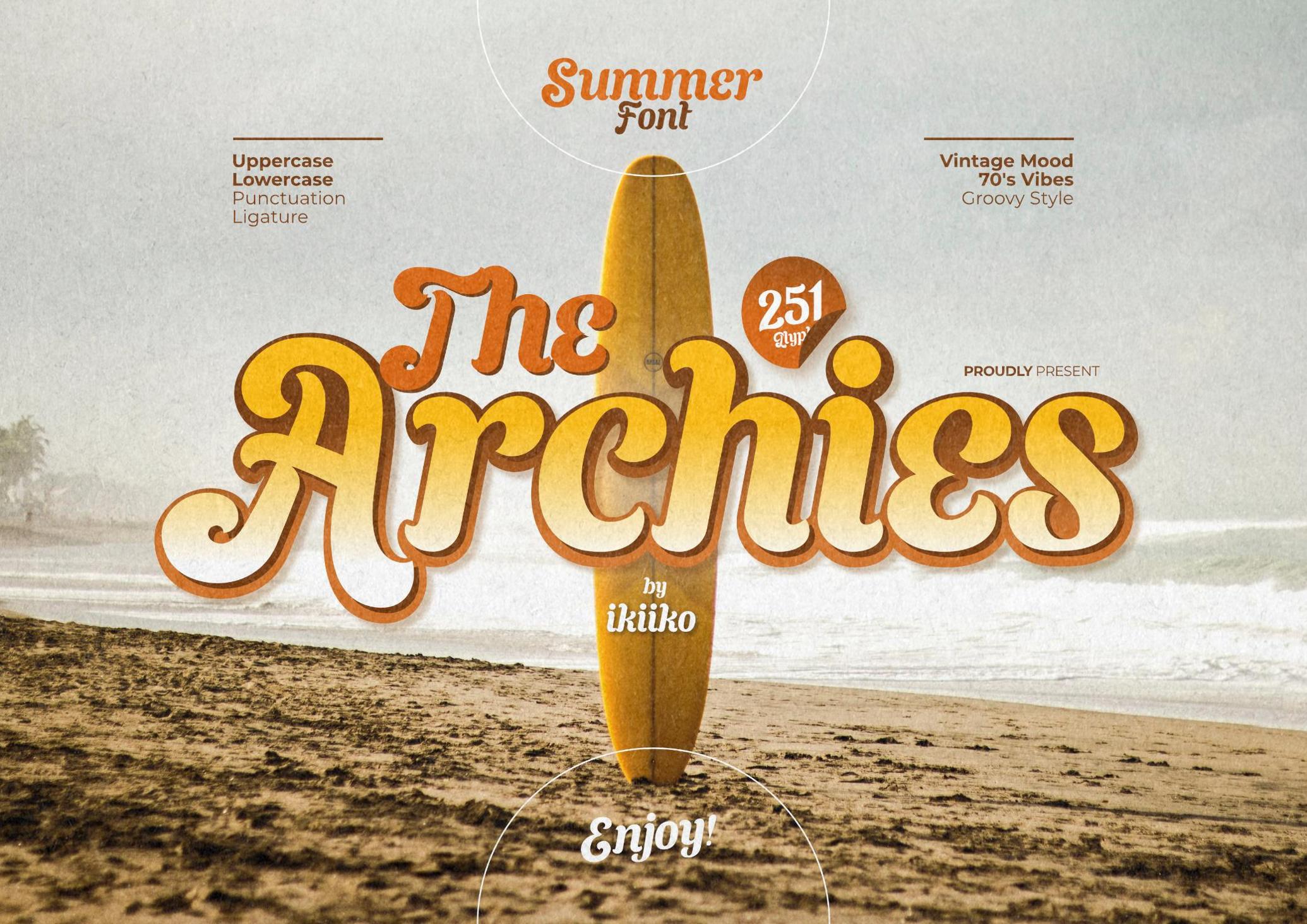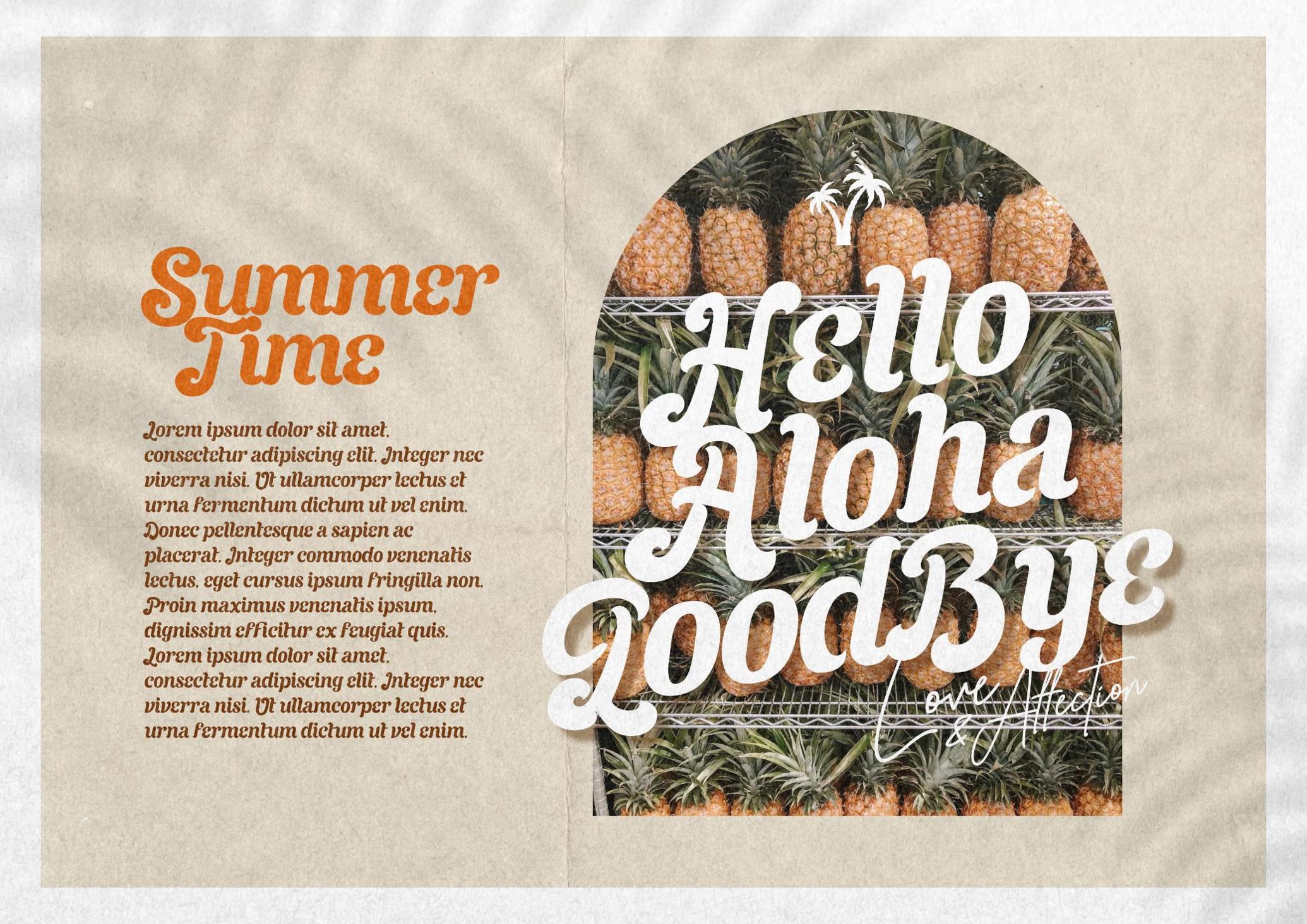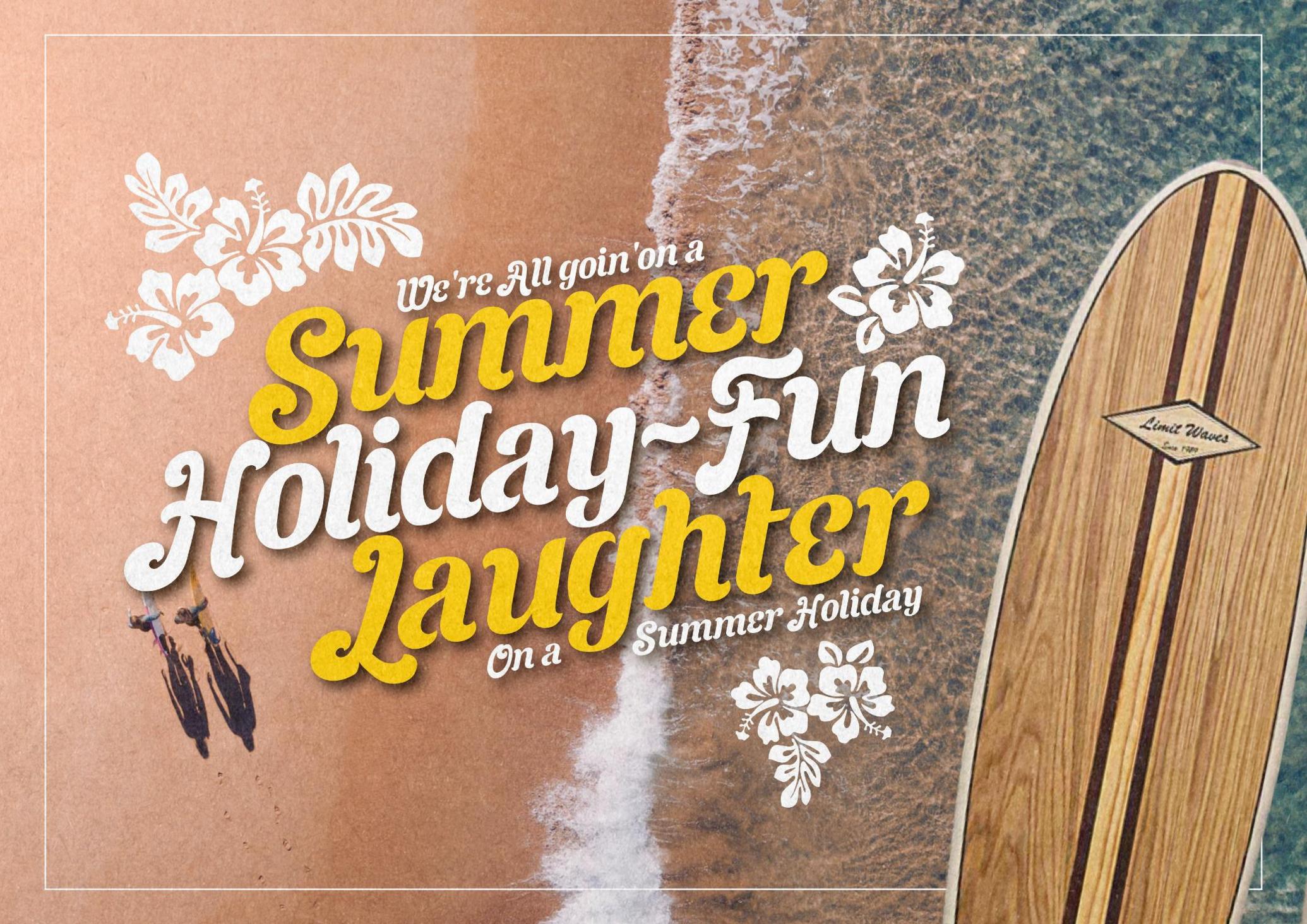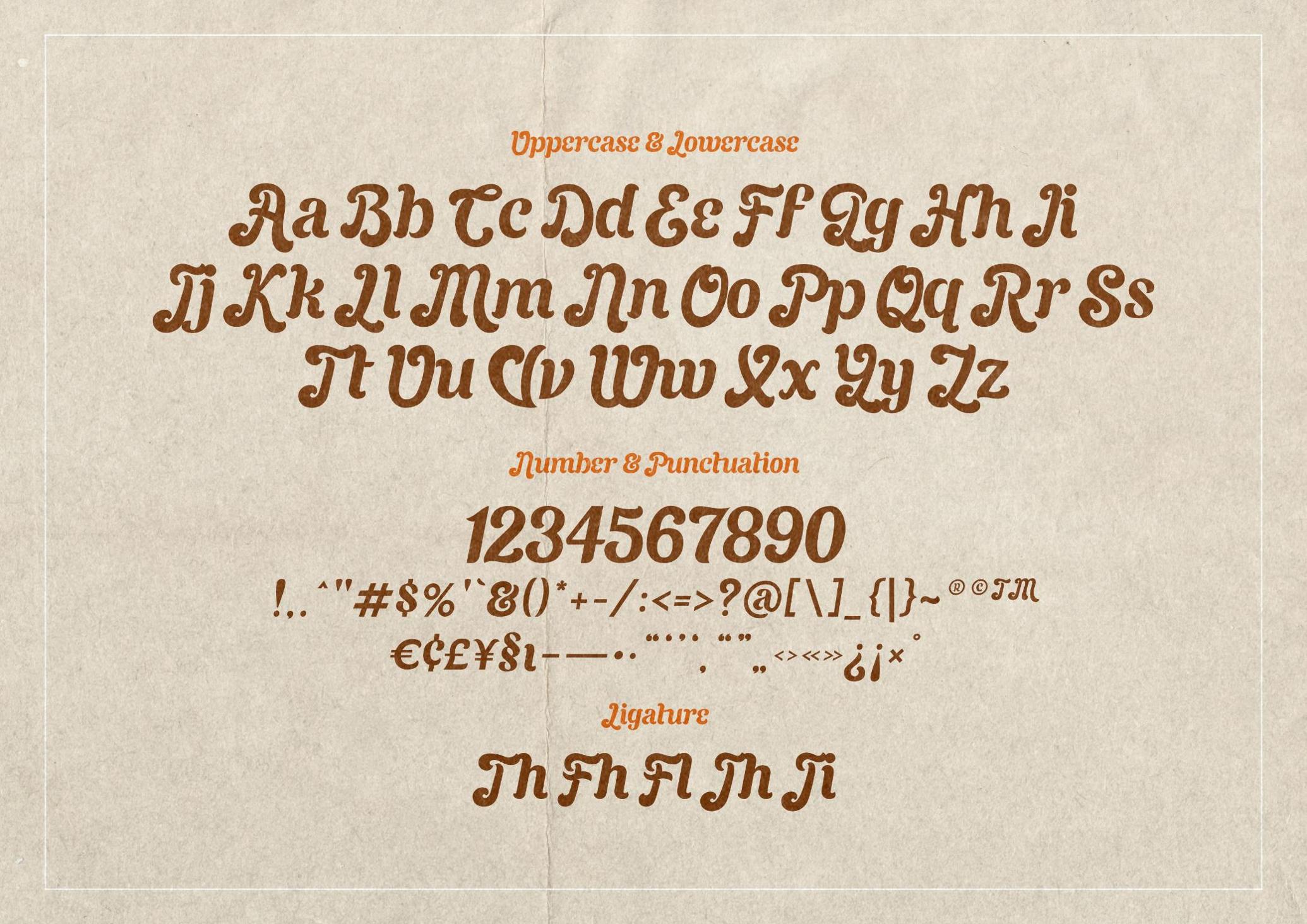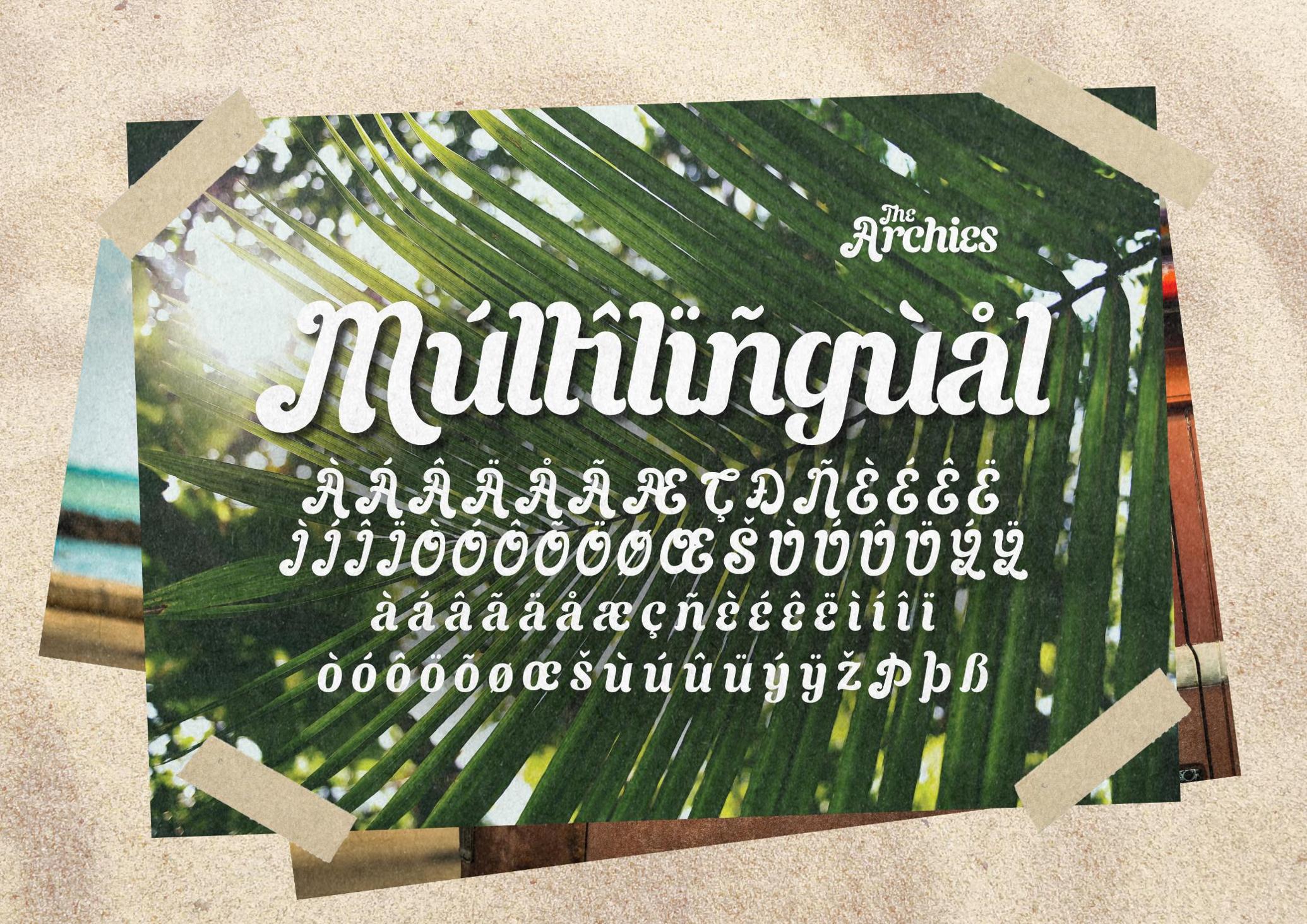
The Archies - Summer Font
The Archies is a summer mood that has a vintage style & holiday vibes. A sweet and sentimental font that simply whisks you away to the sandy beaches of summers gone by. The carefree vibe of beach days and warm, leisurely afternoons is well captured by this vintage-inspired font, which emits a timeless charm.
This typeface adds a dash of nostalgic elegance to your creative projects with its bold cursive style. The ideal option for incorporating a bit of beachy nostalgia and vintage appeal into your designs.
This typeface is perfect for an holiday greeting, summer poster, vacation title, beach & tropical design, and so much more.
• Number & Punctuation
• Ligature